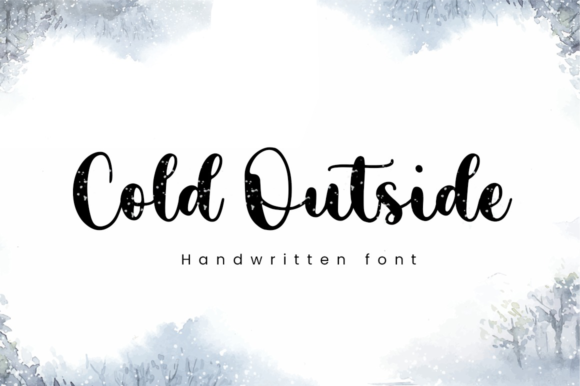
Enter the Cold Outside Font, a stylish and delicate font that’s sure to elevate any design. With its clean, trendy, and smooth vibe, this font is a game-changer for designers looking to add a touch of sophistication to their work. Whether you’re working on a logo, a brochure, or a social media graphic, Cold Outside Font is the perfect addition to take your design to the next level.
Cold Outside Font Key Features
- Unique Characteristics: Features a distressed, cold-pressed aesthetic with subtle texture and imperfections
- Language Support: Supports a wide range of languages, including Latin, Cyrillic, and Greek alphabets
- Font Weight: Offers a range of weights, from Light to Black, with corresponding italic styles
- Kerning and Ligatures: Includes advanced kerning and ligature pairs for improved readability and aesthetic appeal
Cold Outside Font Review
Overall, I think the Cold Outside Font is a decent addition to any design library. Here are some things that I think work well:
- ✨ The font’s unique, wintery feel is perfect for holiday-themed designs, especially for Christmas or winter-related projects.
- ✨ The font is highly customizable, allowing designers to adjust the weight, width, and even the spacing between characters.
- ✨ The font includes a wide range of characters, including numbers, punctuation, and even a few ornaments to add some extra flair.
However, there are some limitations that I think designers should be aware of:
- ⚠️ The font may not be the best choice for body text, as it can be quite ornate and may be difficult to read at smaller sizes.
- ⚠️ Some characters, such as the uppercase “Q” and “R”, may not render perfectly in certain situations.
- ⚠️ The font is not available in as many languages as some other fonts, which may limit its use in certain projects.
Overall, I think the Cold Outside Font is a fun and versatile addition to any design library. While it may have some limitations, it’s perfect for designers who need a unique, wintery feel for their holiday-themed projects.
Tips for Getting the Most Out of the Cold Outside Font
Use the Cold Outside Font to create a unique and eye-catching visual identity for your brand. It works well for headings and titles, but can also be used for body text in smaller sizes. Experiment with different font sizes and colors to find the perfect balance for your design.
The Cold Outside Font is ideal for:
- Winter-themed designs and marketing materials.
- Outdoor and adventure-related brands.
- Headings and titles for blog posts and articles.